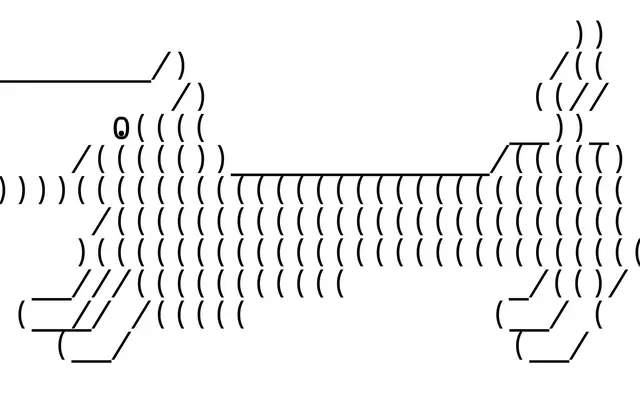
R-I-B-BI
Monokrom · Frode Helland · 2025
A four-style family by Frode Helland that reconstructs the typographic workarounds used during the analog-to-digital transition, from double-struck bolds to rotated sorts and early ASCII art.
Split into two subfamilies, R-I-B-BI Typewriter and R-I-B-BI, the family deploys the canonical Regular, Italic, Bold and Bold Italic across both, each expanded with experimental OpenType functionality. The concept draws on real historical hacks: manuscript touch-ups, mathematical blackboard bolds, underscores used as rules, and faux digital synthesis, treating constraint and approximation as a design method rather than a limitation. Released in 2025 with animation tooling by Wim Wepster, it sits at the intersection of type history and conceptual practice.
R-I-B-BI is a conceptual display family that deliberately recreates typographic workarounds from the analog-to-digital transition era, including typewriter simulation, faux bolds and rotated sorts, placing it firmly in experimental display territory rather than any conventional classification.